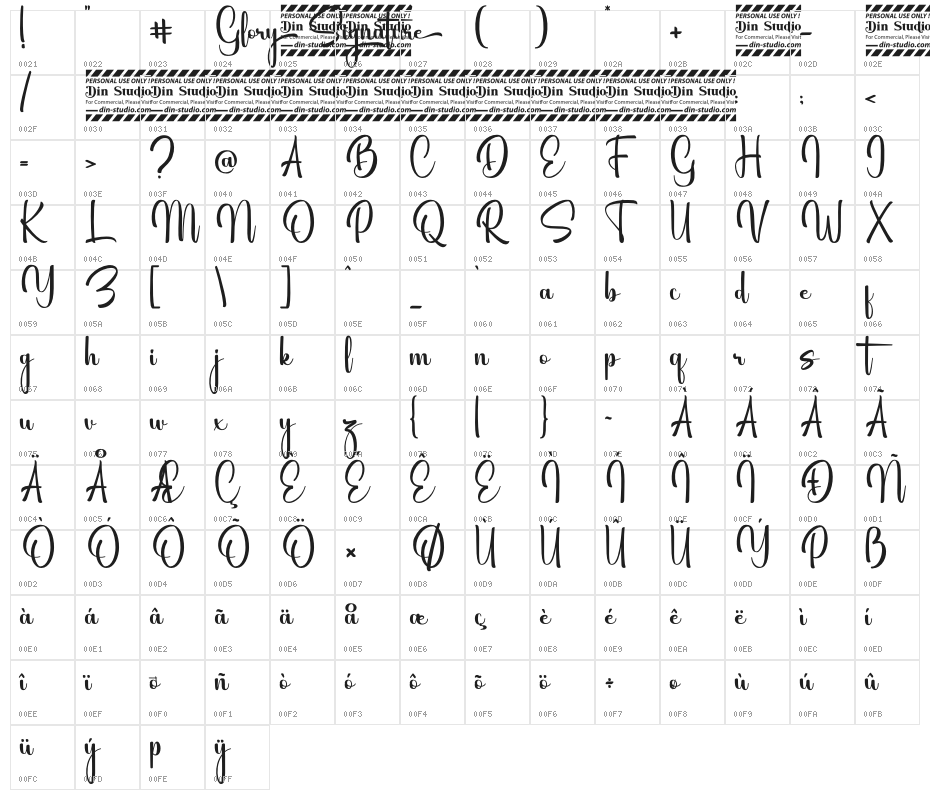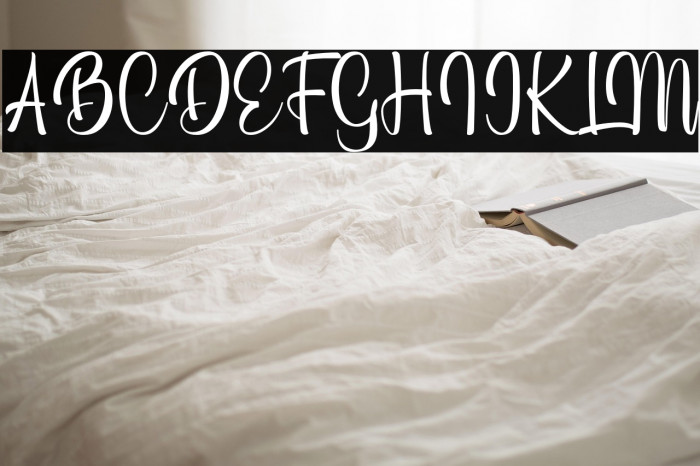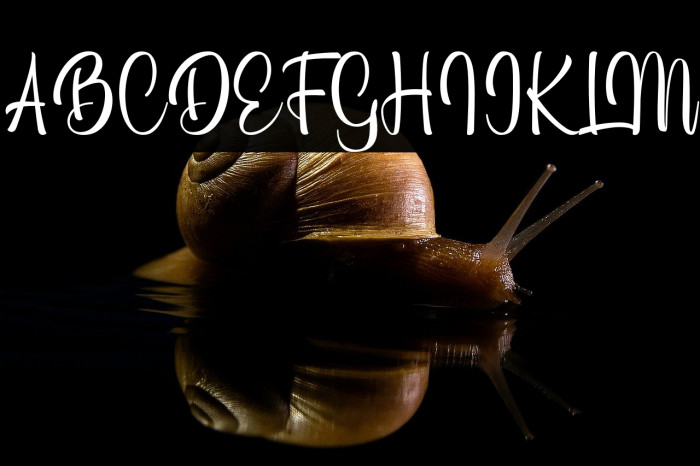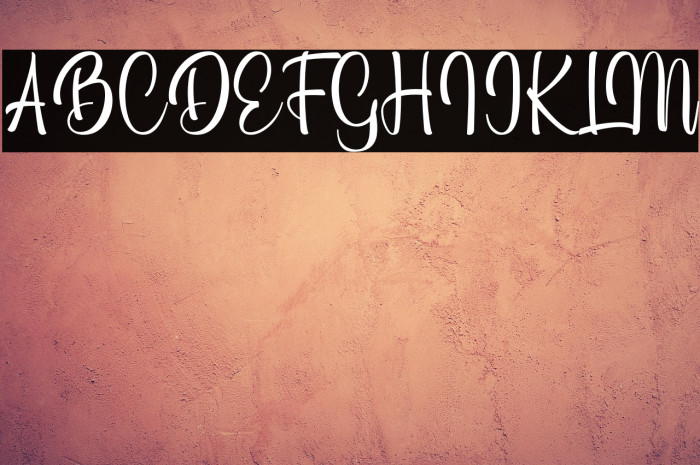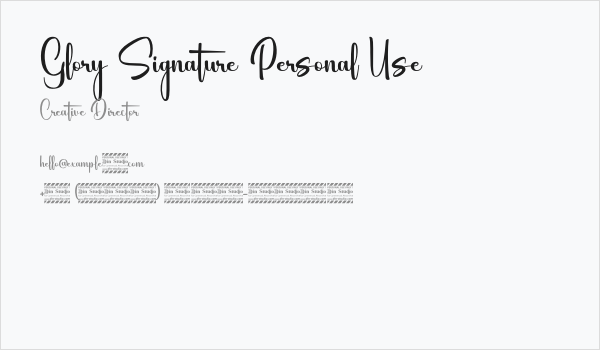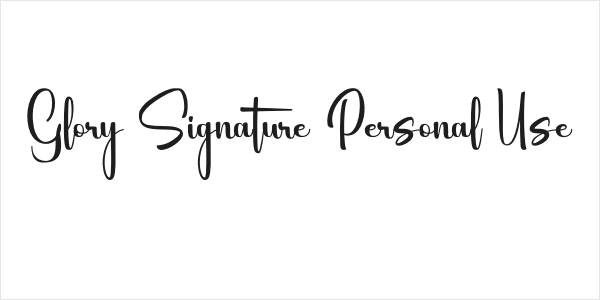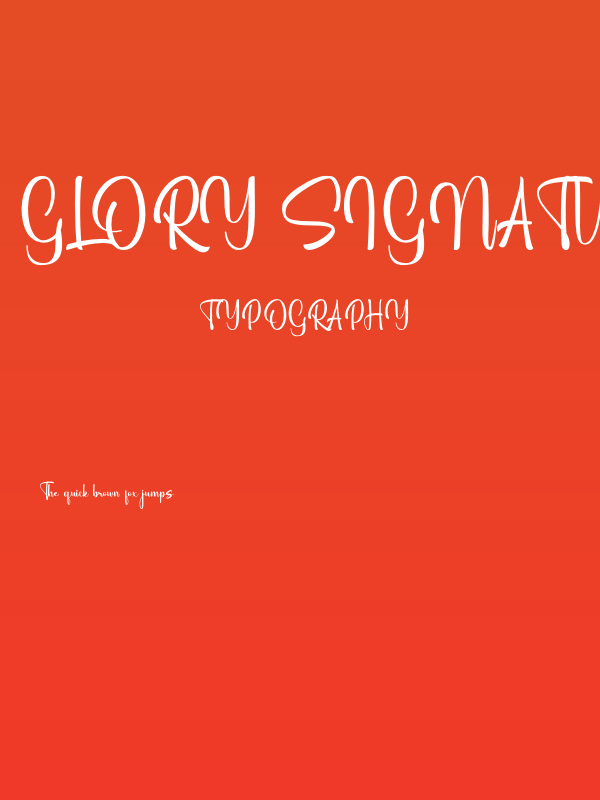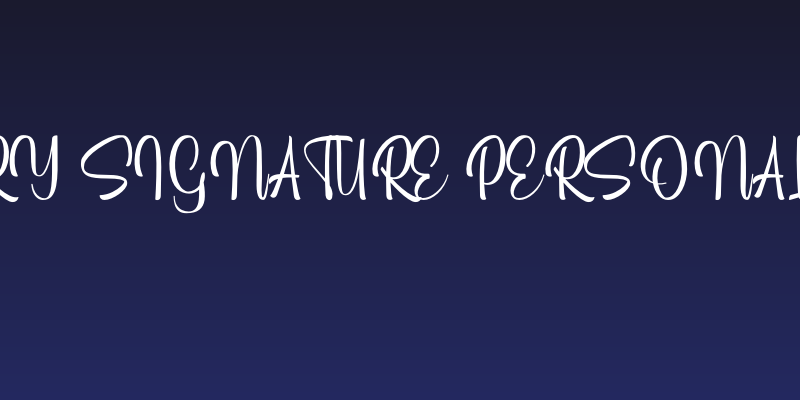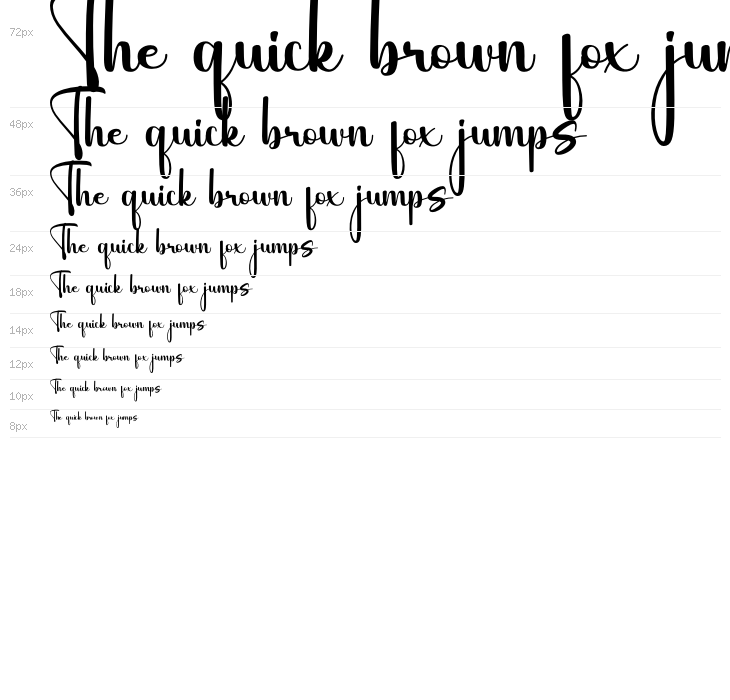
Glory Signature Personal Use Font
Glory Signature Personal Use Description
This font exudes a modern and elegant script style, characterized by its flowing, cursive letterforms that mimic the fluidity of handwriting. The uppercase letters are tall and slender, with graceful loops and swashes that add a touch of sophistication. The lowercase letters maintain a consistent flow, with some characters featuring unique flourishes that enhance the overall aesthetic. The numerals are styled to match the script, ensuring a cohesive look across all text. Special characters are thoughtfully designed, maintaining the font's elegant and personal feel.